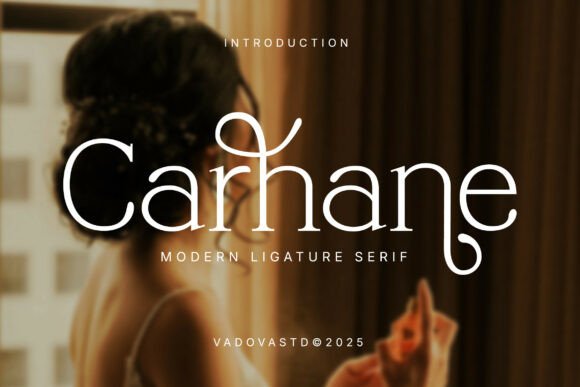
The Elegance of Carhane Font: A Designer’s Delight
Carhane presents a refined modern serif typeface that checks all the boxes for a designer’s dream font. Its elegant ligatures, thin contrast strokes, and graceful curves elevate any design to a new level of visual sophistication.
Design Philosophy and Inspiration
The story behind Carhane Font is one of minimalist luxury. Its creator aimed to blend the best of contemporary serif structures with decorative details, making it visually distinctive without losing clarity. The result is a font that’s both refined and attention-grabbing.
Imagine a design that whispers elegance, rather than shouts it. That’s what Carhane Font brings to the table. Its design inspiration stems from a desire to create a typeface that’s not just aesthetically pleasing but also highly functional across various design platforms.
• ✨ Elegant ligatures that add a touch of sophistication to any text
• ✅ Thin contrast strokes that provide a beautiful visual hierarchy
• 🔥 Perfect for luxury brands, magazines, and high-end designs
• 🤔 May require some time to get used to, especially for those familiar with more traditional serif fonts